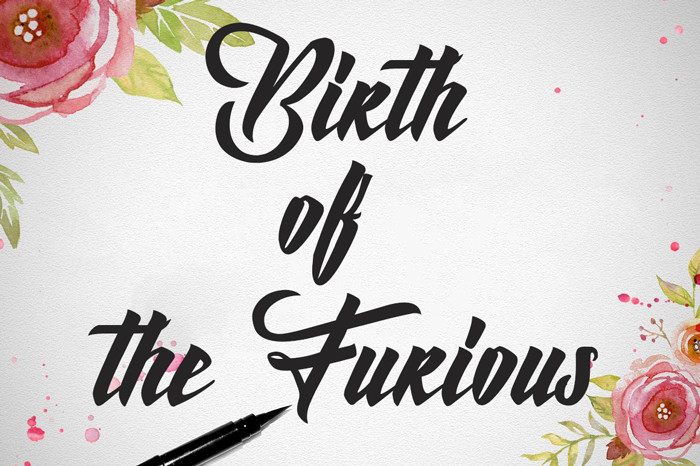
Birth of the Furious Font
Birth of the Furious is a handwritten font. With modern script style this font will perfect for many different project, example: invitations, greeting cards, posters, name card, quotes, blog header, branding, logo, fashion, apparel, letter, stationeryand more !